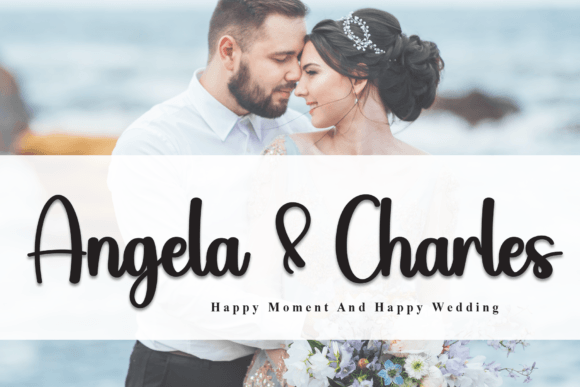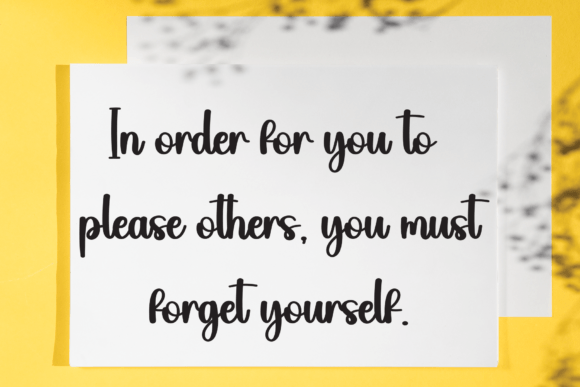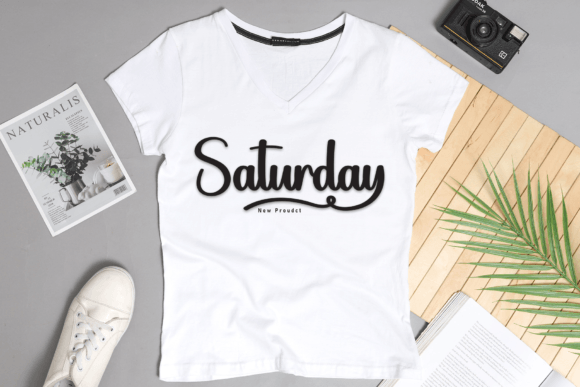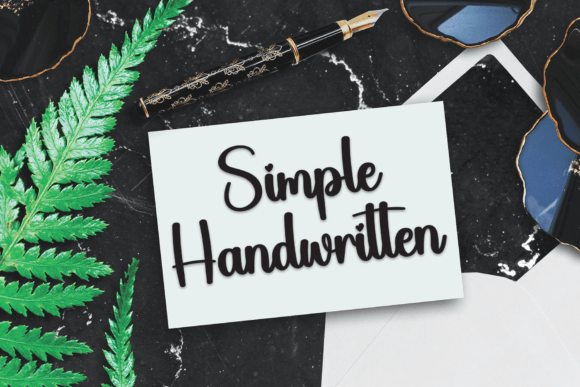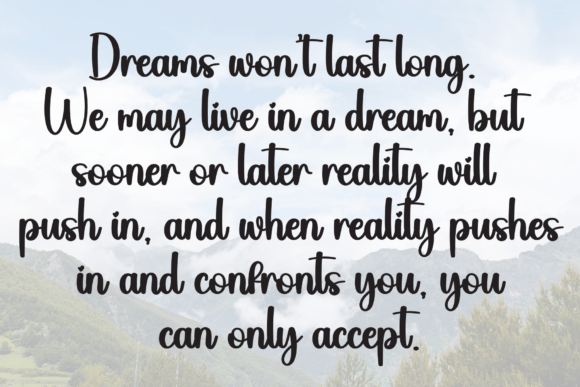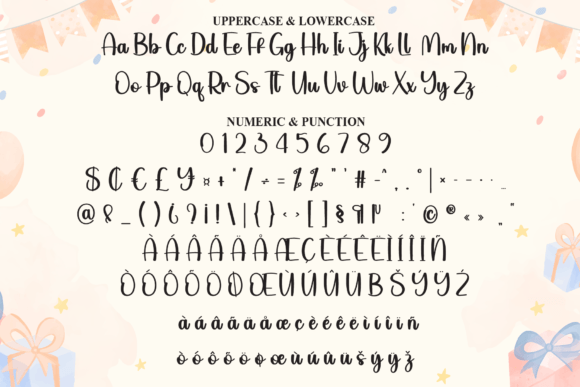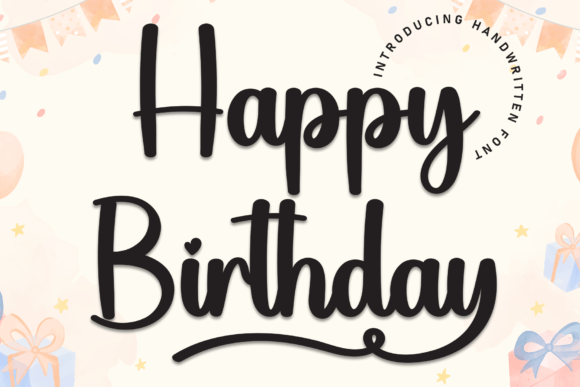
Introducing Happy Birthday Font: The Perfect Addition to Your Design Collection
Are you tired of using the same old fonts for your personal projects, social media, and invitations? Look no further! Happy Birthday Font is a beautiful, casual handwritten font that is sure to bring a relaxed and friendly vibe to your designs. With its natural, flowing strokes, this font is perfect for adding a touch of warmth and authenticity to any project.
The Characteristics of Happy Birthday Font
Happy Birthday Font is a unique and charming font that boasts a range of characteristics that make it perfect for a variety of design applications. Some of its key features include:
- Natural, flowing strokes: The font’s strokes are smooth and fluid, giving it a relaxed and effortless feel.
- Casual, handwritten style: Happy Birthday Font has a friendly, approachable vibe that’s perfect for personal projects and social media.
- Easygoing style: This font is designed to add a touch of warmth and authenticity to your designs, making it perfect for invitations, greeting cards, and more.
Why Choose Happy Birthday Font?
So why should you choose Happy Birthday Font for your next design project? Here are just a few reasons:
- Perfect for personal projects: Whether you’re creating a birthday card for a friend or a personalized gift for a loved one, Happy Birthday Font is the perfect choice.
- Ideal for social media: Add a touch of personality to your social media posts with this charming font.
- Great for invitations: Happy Birthday Font is perfect for creating beautiful, one-of-a-kind invitations for parties, gatherings, and more.
- Easy to read: The font’s clear, flowing strokes make it easy to read, even at smaller sizes.
How to Use Happy Birthday Font
Using Happy Birthday Font is easy! Here are a few tips to get you started:
- Pair it with other fonts: Try pairing Happy Birthday Font with other fonts to create a unique and eye-catching design.
- Experiment with colors: The font’s natural, flowing strokes look great in a range of colors, from bright and bold to soft and pastel.
- Use it for headings and titles: Happy Birthday Font is perfect for headings and titles, adding a touch of personality to your designs.
Design Inspiration with Happy Birthday Font
Need some inspiration for your next design project? Here are a few ideas to get you started:
- Create a birthday card: Use Happy Birthday Font to create a beautiful, one-of-a-kind birthday card for a friend or loved one.
- Design a social media post: Add a touch of personality to your social media posts with this charming font.
- Make a party invitation: Happy Birthday Font is perfect for creating unique and eye-catching party invitations.
In conclusion, Happy Birthday Font is a beautiful, casual handwritten font that’s perfect for adding a touch of warmth and authenticity to your designs. With its natural, flowing strokes and easygoing style, this font is ideal for personal projects, social media, and invitations. So why not give it a try and see the difference it can make in your designs?